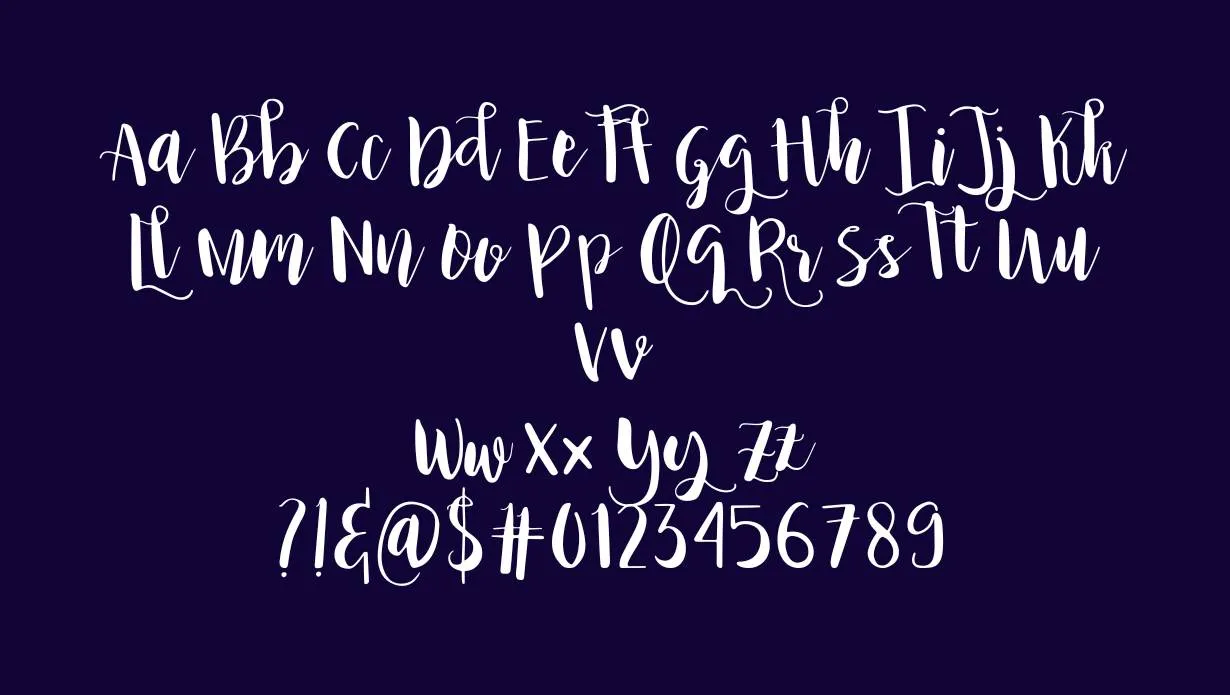
Princess Ivy Script Font adds a fairy-tale charm to your projects. The elegant and flowing lines of this script font create a dreamy and romantic atmosphere. Its lightweight design and moderate width make it ideal for a variety of uses, from wedding invitations to feminine branding.
The technical details of Princess Ivy Script Font showcase its intricate design, making it a delightful choice for projects that call for a touch of magic.
| Name | Princess Ivy Script Font |
| Designer | inventive fabrica |